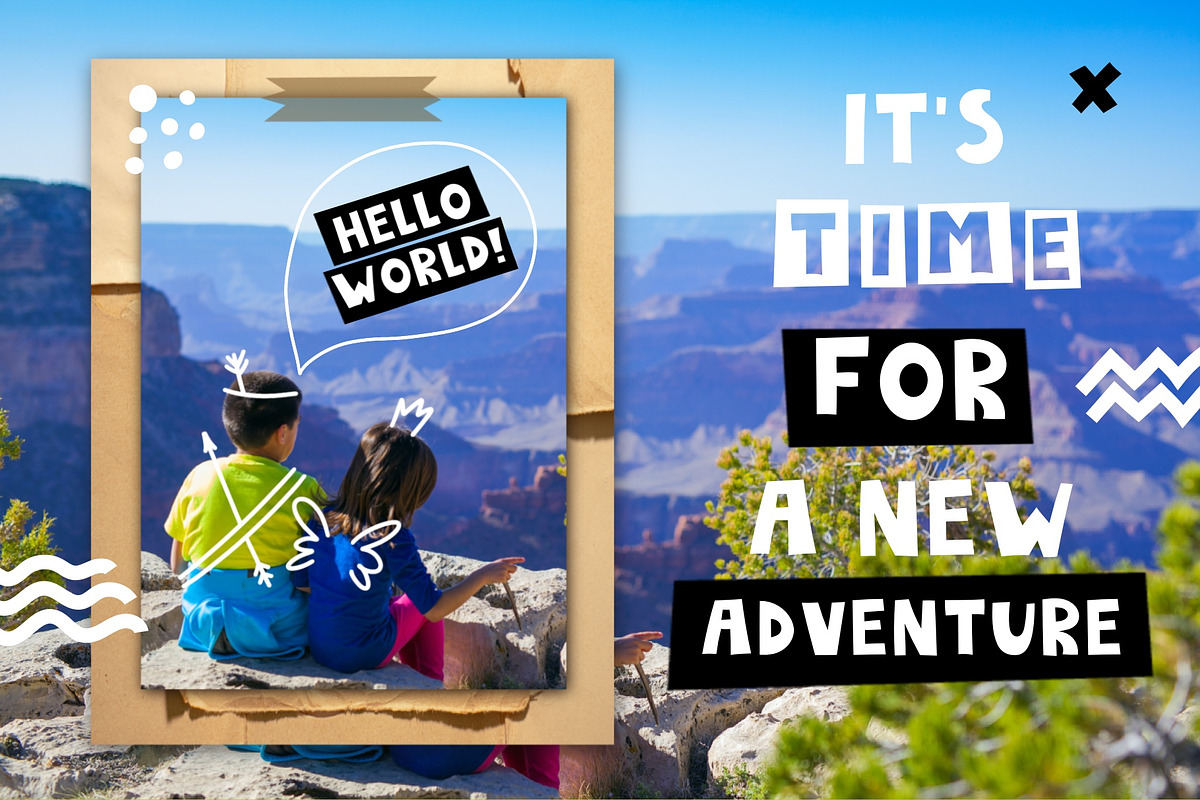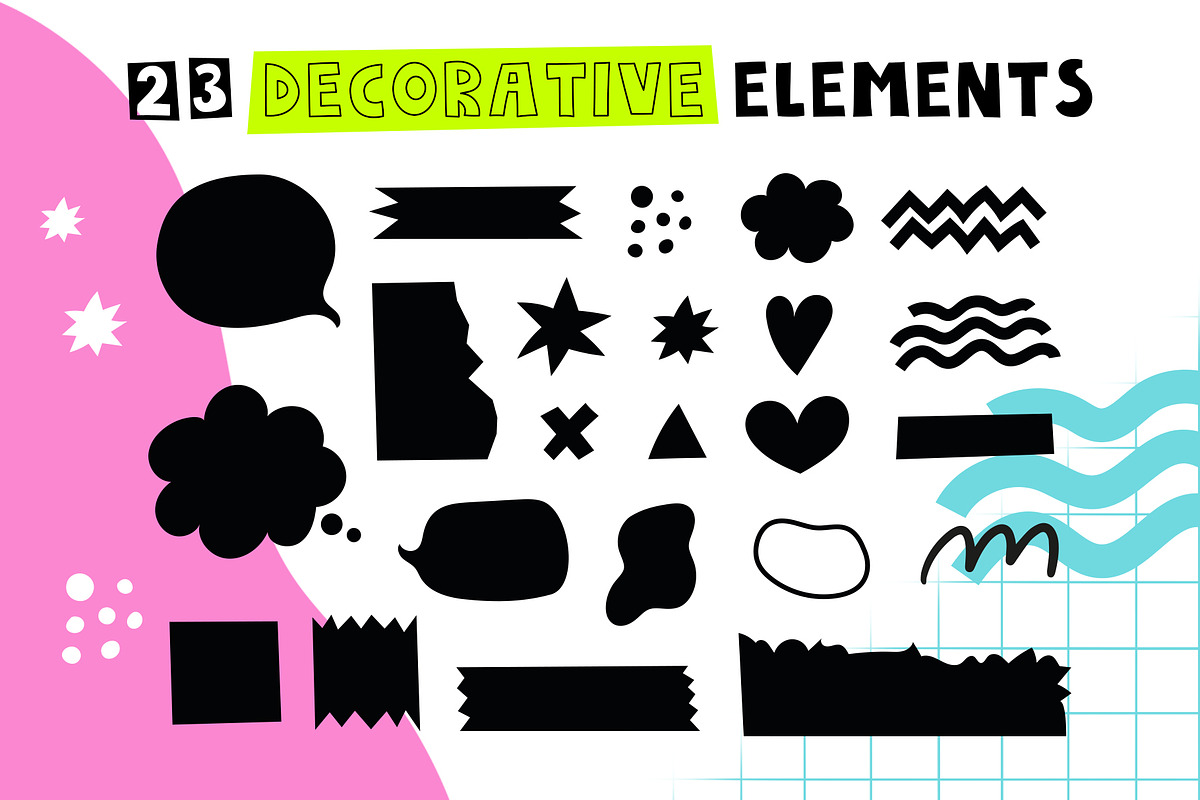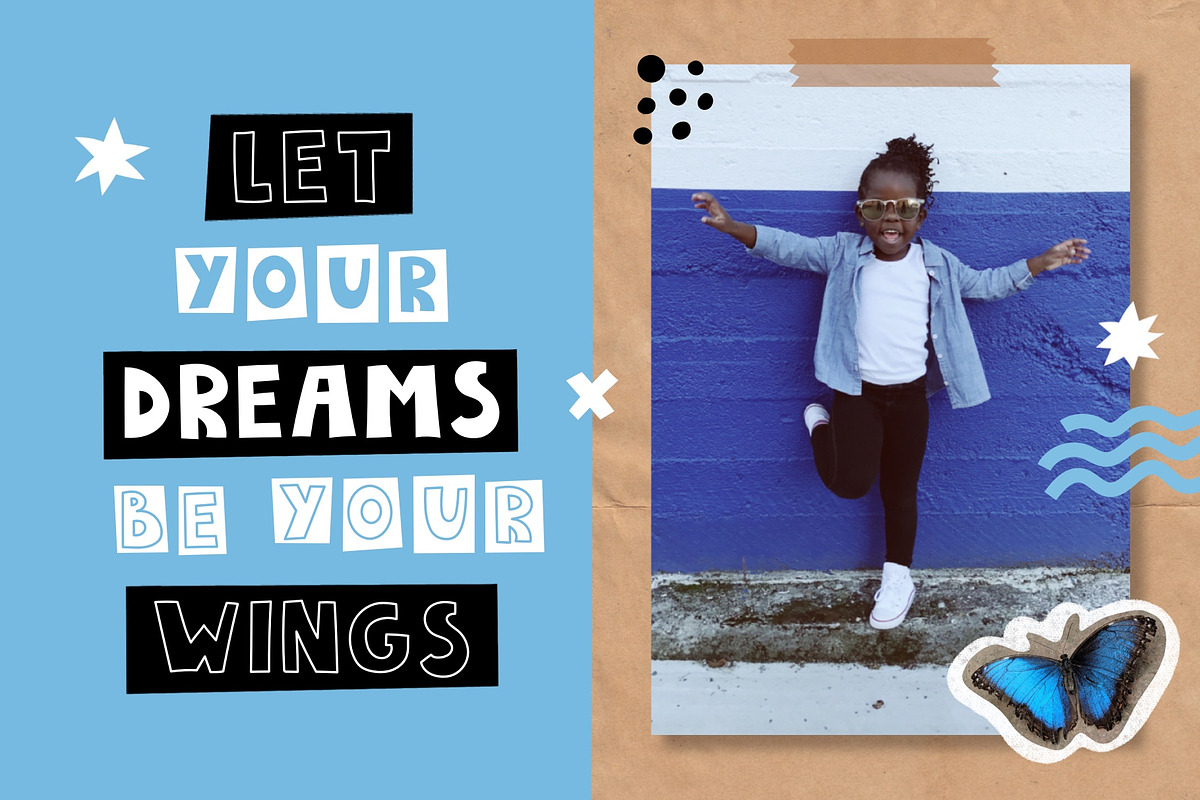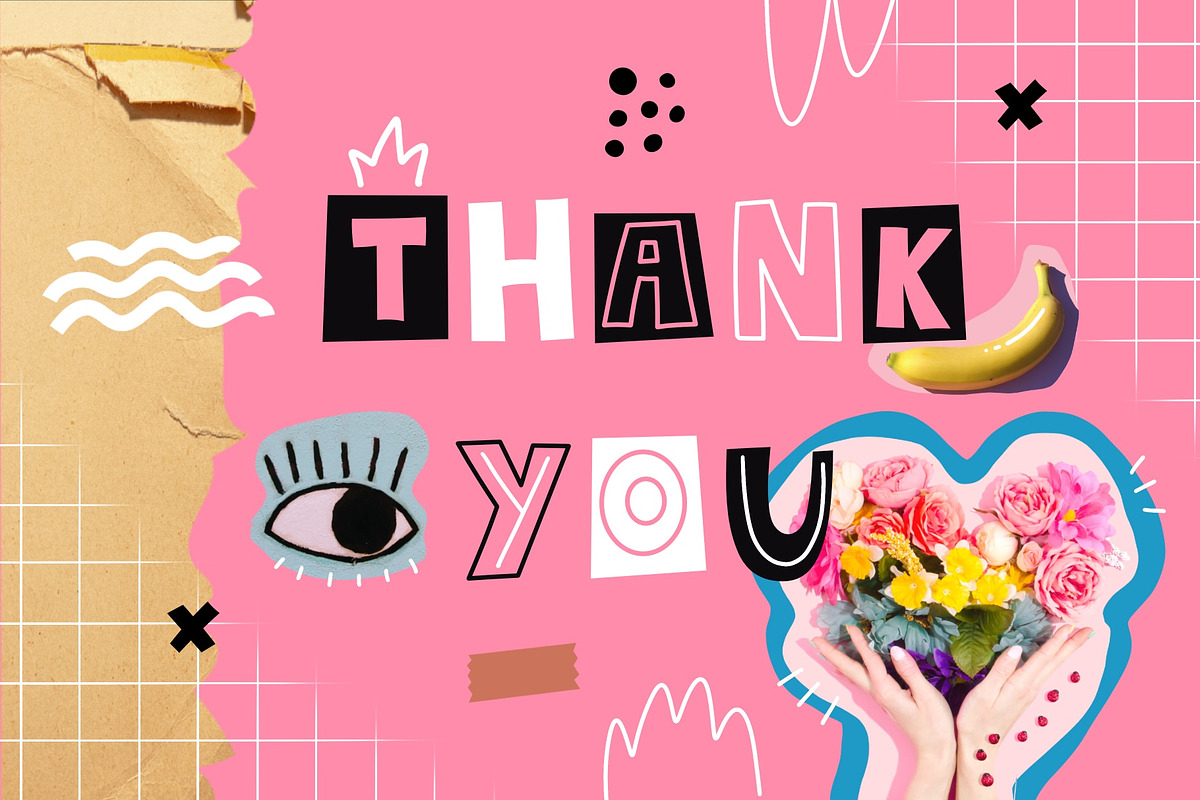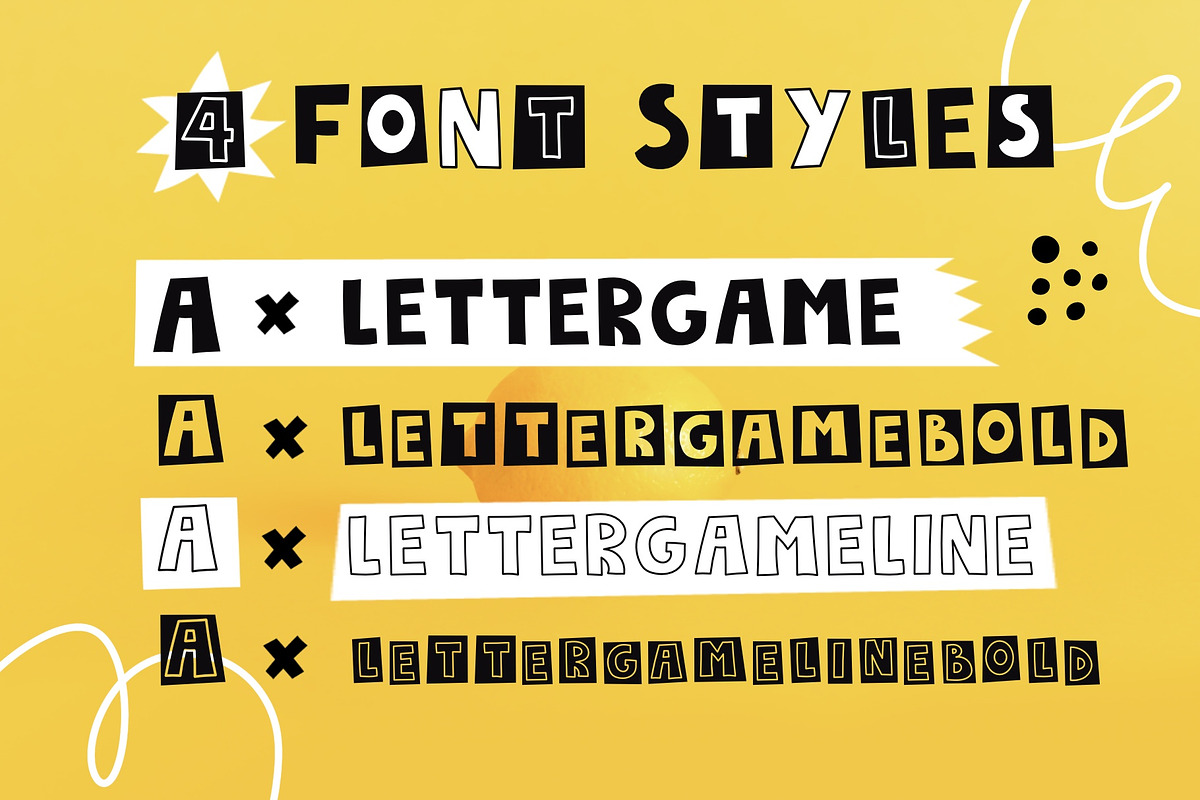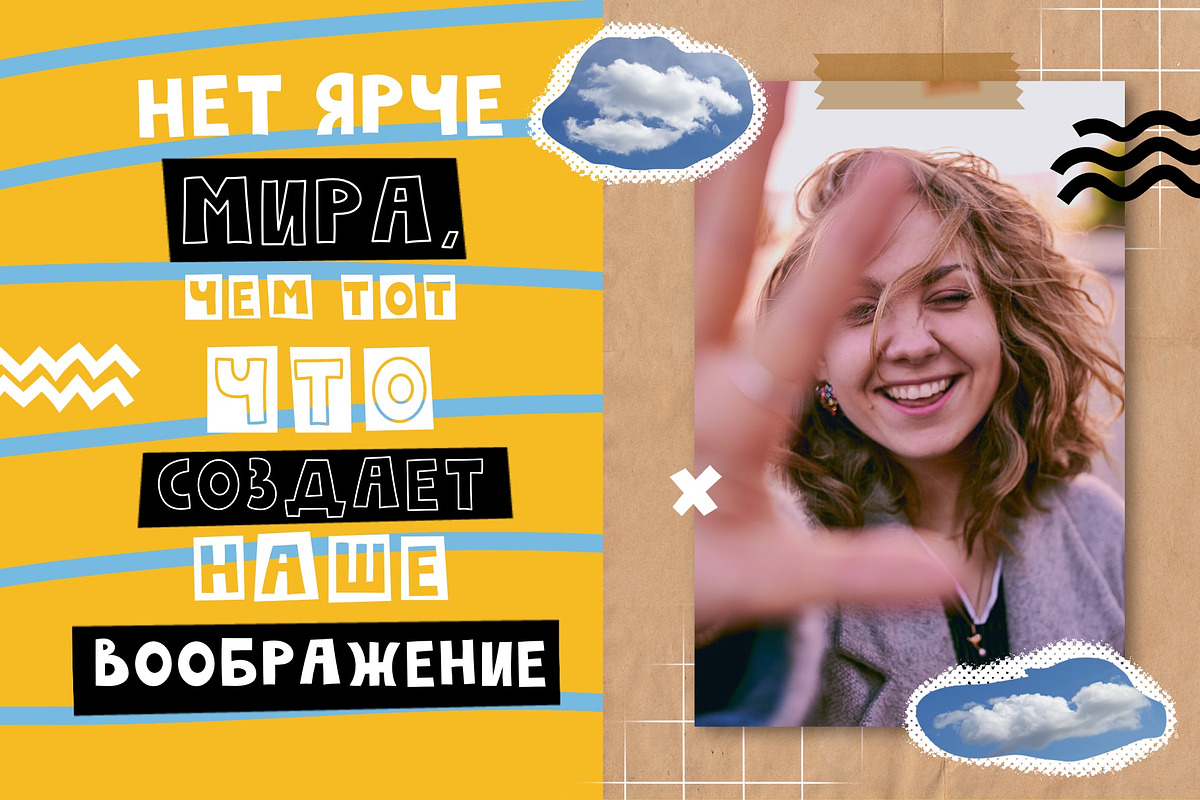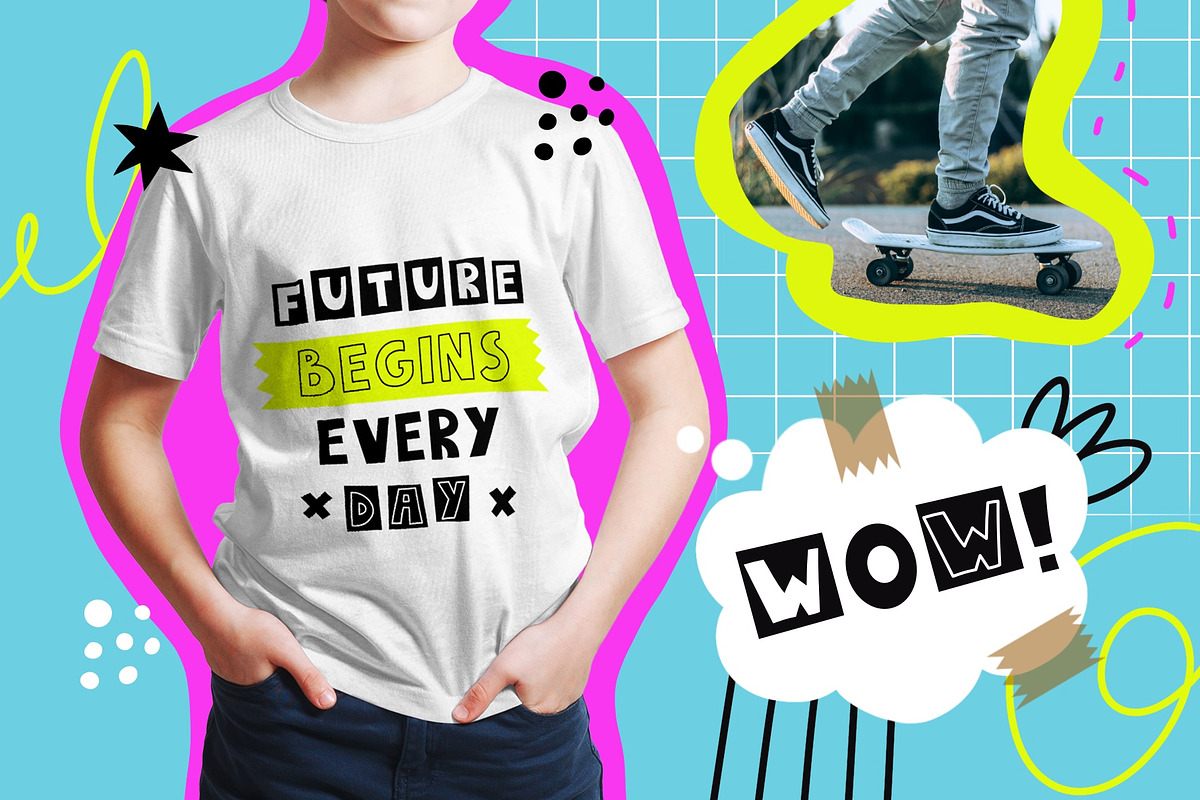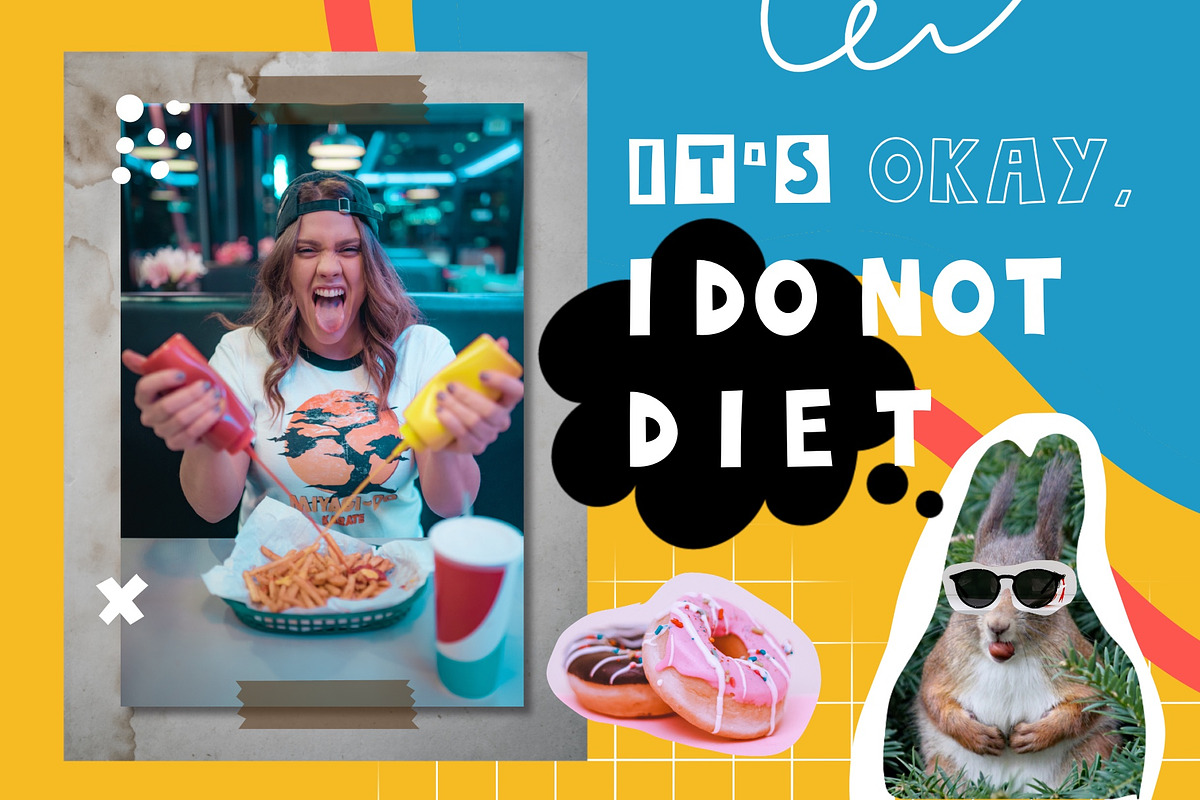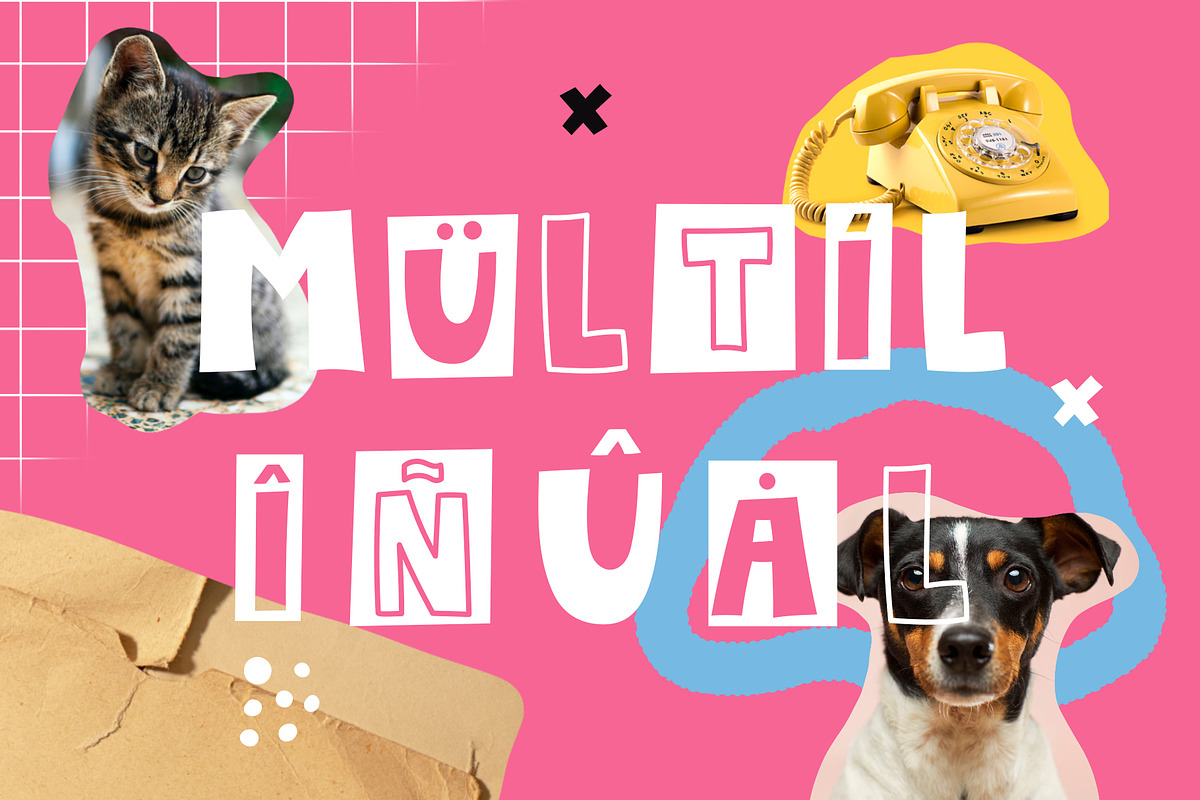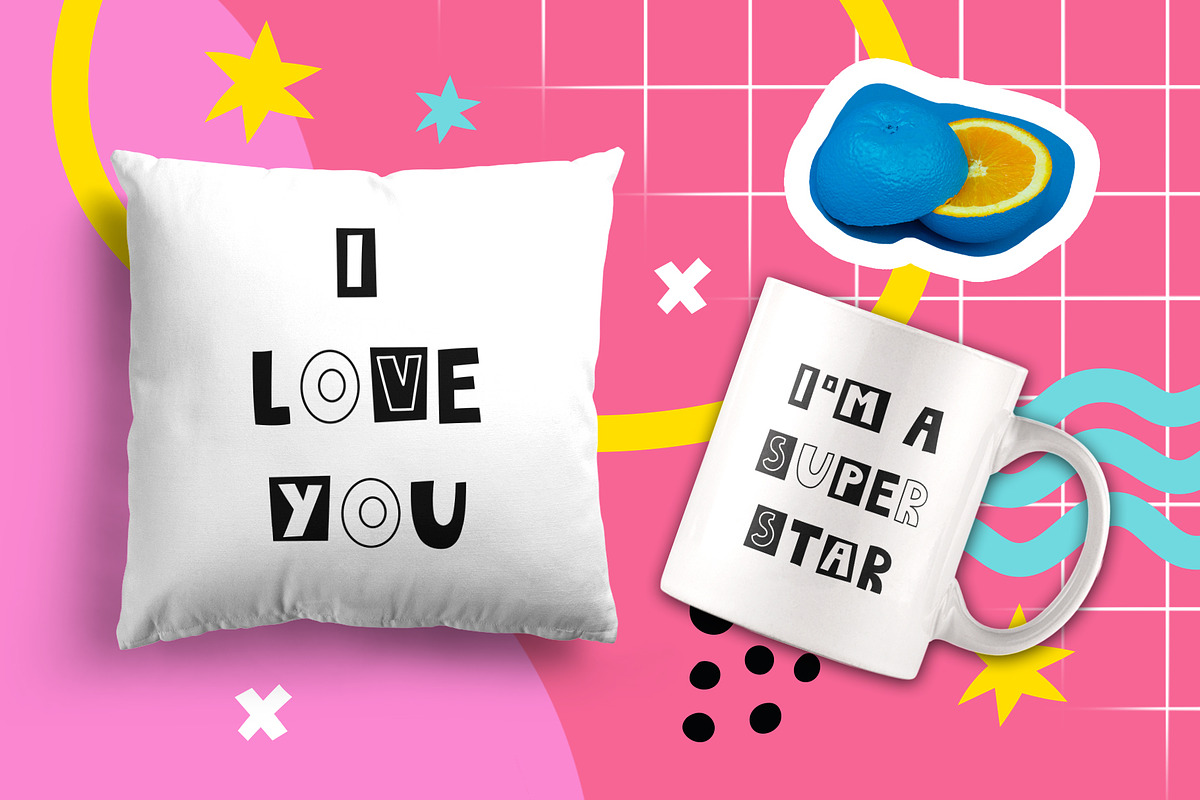
LetterGame - Kids font family
Lettergame unusual family font in the style of a collage! The Lettergame kids font family includes 4 fonts with different styles that fit together perfectly. This family font is perfect for trending designs. With it, you can create greeting cards, posters, stickers, mugs and t-shirts designs. Use a font for your blog or to-do planner. Your design will not go unnoticed!